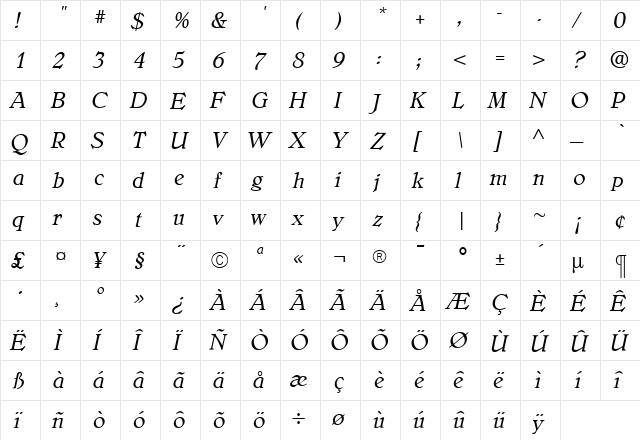
BelliniOriginalItalic Italic
Design Context for BelliniOriginalItalic Typeface
BelliniOriginalItalic takes a measured approach to typography — its balanced proportions and neutral character make it a reliable workhorse for both digital and print work. Its italic angle brings a sense of urgency and motion to the letterforms.
Pro Tip: Use BelliniOriginalItalic for emphasis, pull quotes, and subheadings where its slanted energy can add rhythm to the layout.